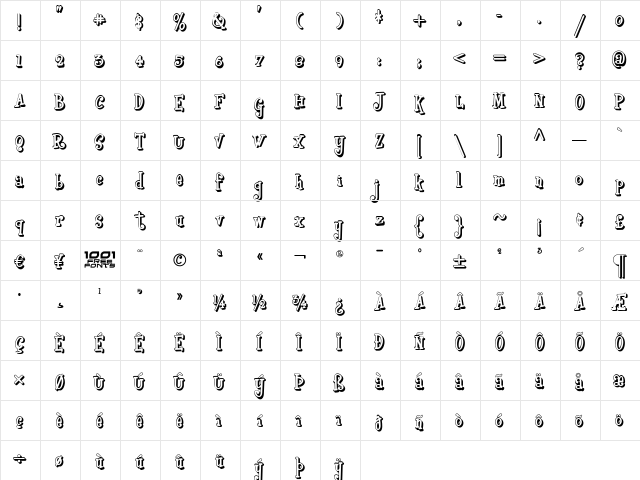
Boyz R Gross Shadow NF Regular
Design Context for Boyz R Gross Shadow NF Typeface
Boyz R Gross Shadow NF is built around its visual character rather than neutral utility — its distinctive forms are designed to make an impression at display sizes.
Font Pairing: Pair with a clean neutral sans-serif for body copy to let Boyz R Gross Shadow NF's character lead without overwhelming the composition.
Pro Tip: Treat Boyz R Gross Shadow NF as the centrepiece of your typographic hierarchy. One strong heading set in a decorative face can carry an entire layout.